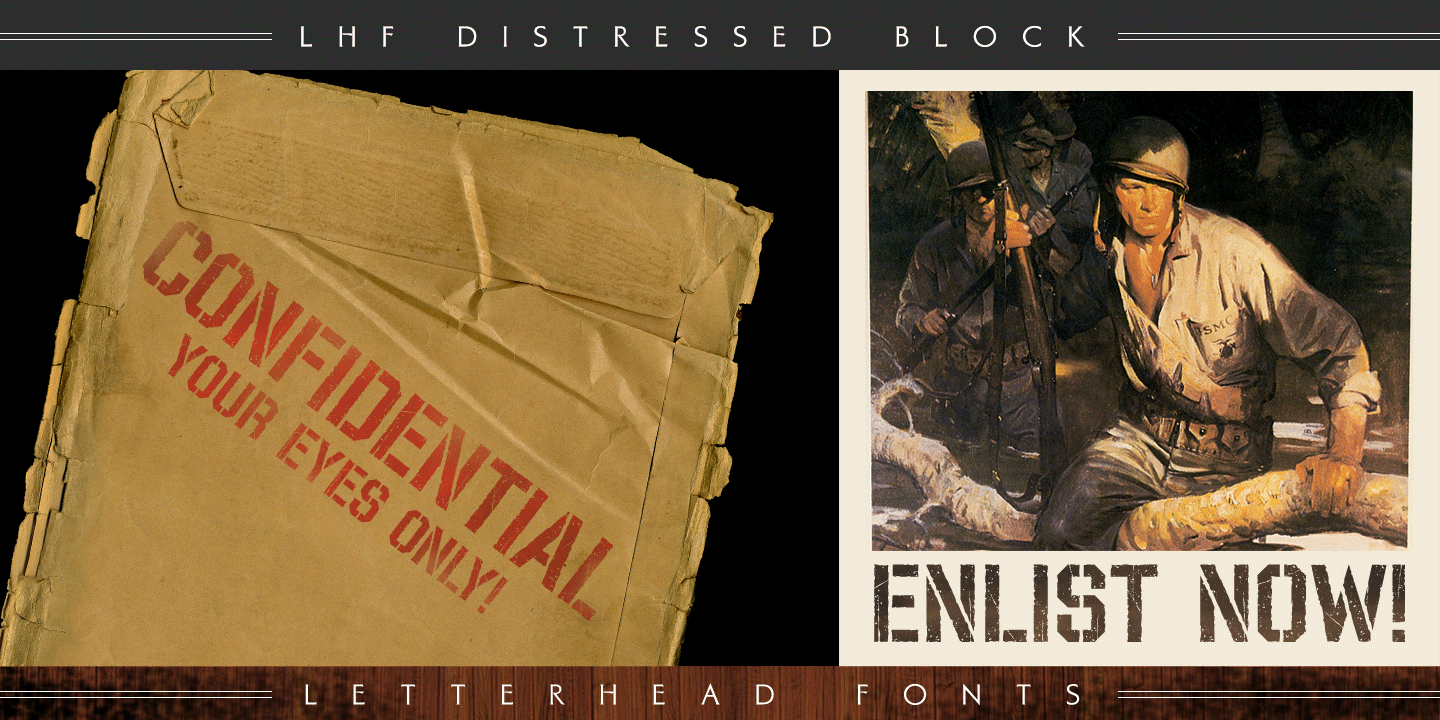
Designed by Kaitlin Sims, LHF Distressed Block is a grunge, sans serif and stencil font family. This typeface has two styles and was published by Letterhead Fonts.
Carefully distressed by hand (no autotrace or filters used) to ensure an expertly clean result. Contains no overlapping or stray points. Use LHF Distressed Block to easily create aged and worn looking t-shirt designs and unique logos. Includes 2 fonts, Regular and Stencil.